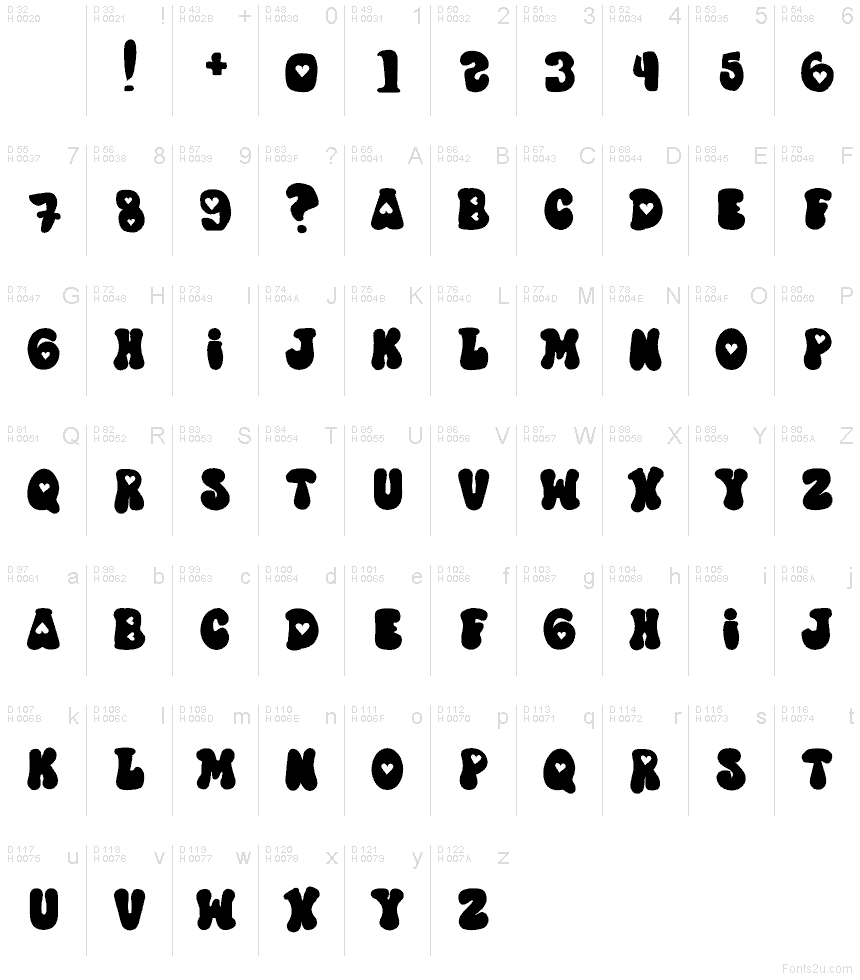
Bold Love
Bold Love font by Bilqis Studio is a free Valentine-themed display font. It’s built around a charming twist: plump, rounded letters punctuated by heart-shaped counters that pop like candy cutouts. The forms are chunky and soft-edged, with a friendly, hand-cut feel that reads loud and warm at a glance—great when you want love to shout, not whisper.
Using Bold Love, your titles snap into focus for greeting cards, party invitations, classroom posters, candy or gift packaging, social posts, and event banners. The generous heft creates confident rhythm in short phrases, while the hearty cutouts add instant mood. Pair this free font with a light, neutral sans for body copy, and set it big to let the hearts breathe.